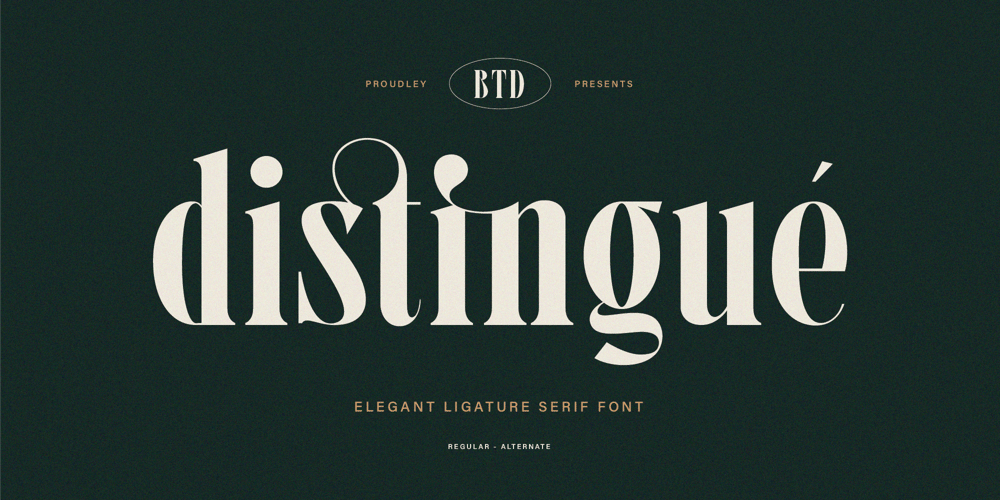
Distingue Font Family was designed by Eric Kurniawan and published by Burntilldead. Distingue contains 1 styles and family package options. Introducing Distingue, an elegant ligature serif font. This font is made to bring strong statement, design with bold geometric face and have swash on alternate characters to keep it look stylish and sharp. An easy & perfect choice to make your design projects; logo, branding, invitation, social media ads & website have classy looks.